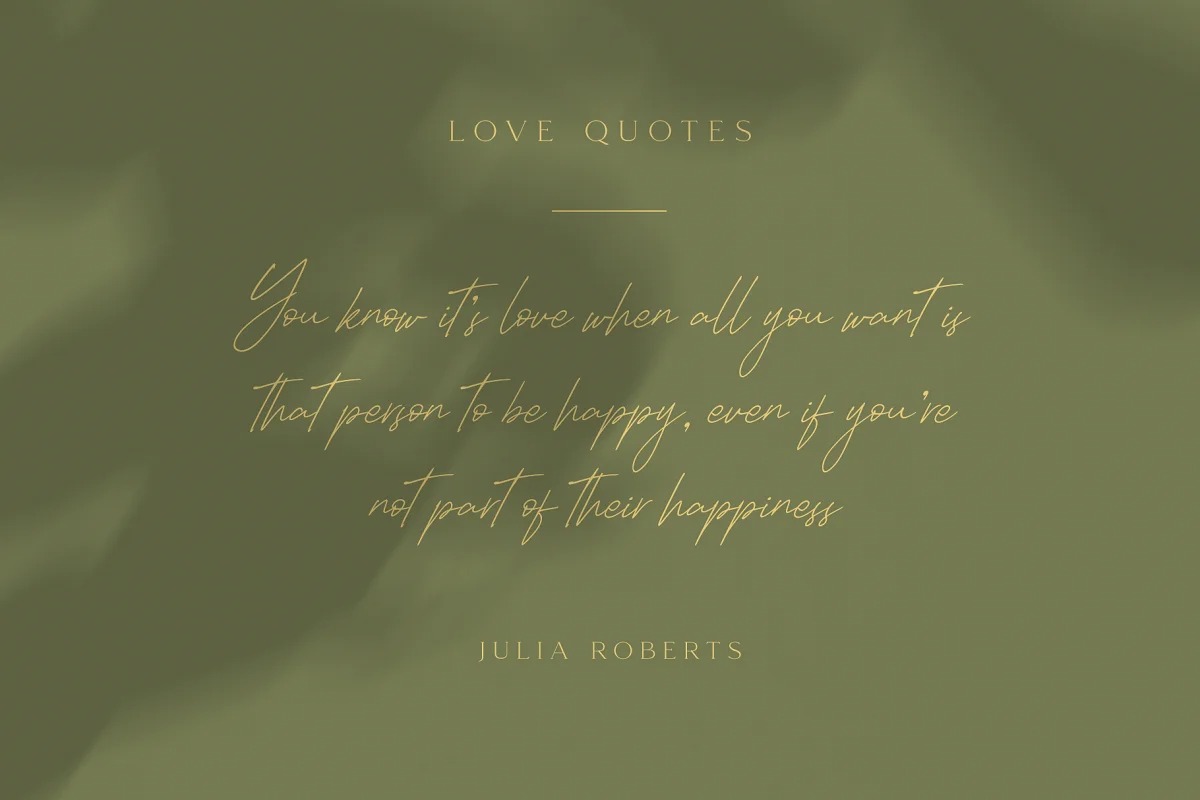
Heleny Font
Heleny Handwritten Font
This is a monoline script typeface created by Craft Supply Co with an elegant style. Heleny will work perfectly for fashion, e-commerce brands, trend blogs, wedding boutiques or any business that wants to appear upscale and chic.
Heleny Font also Suitable for Logo, greeting cards, quotes, posters, branding, name card, stationary, design title, blog header, art quote, typography, art, modern envelope lettering or book design, happening style like handdrawn design or watercolor design theme, craft design, any DIY project, book title, or any purpose to make your art/design project look pretty and trendy.